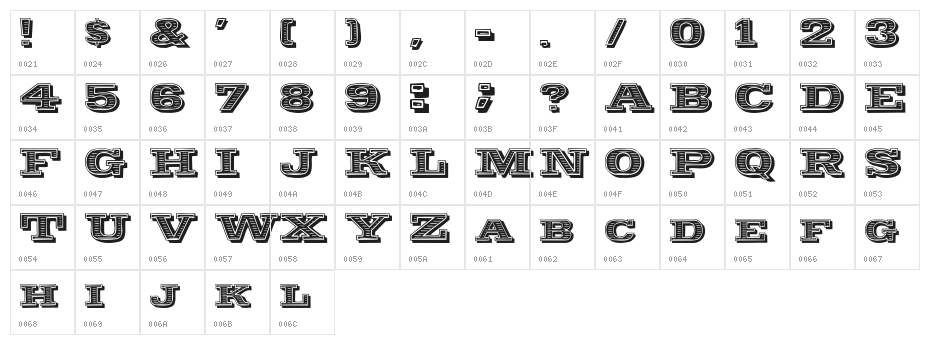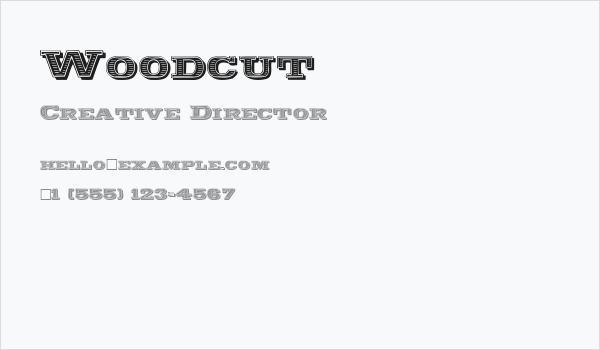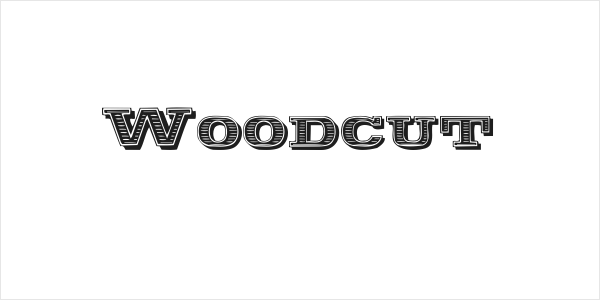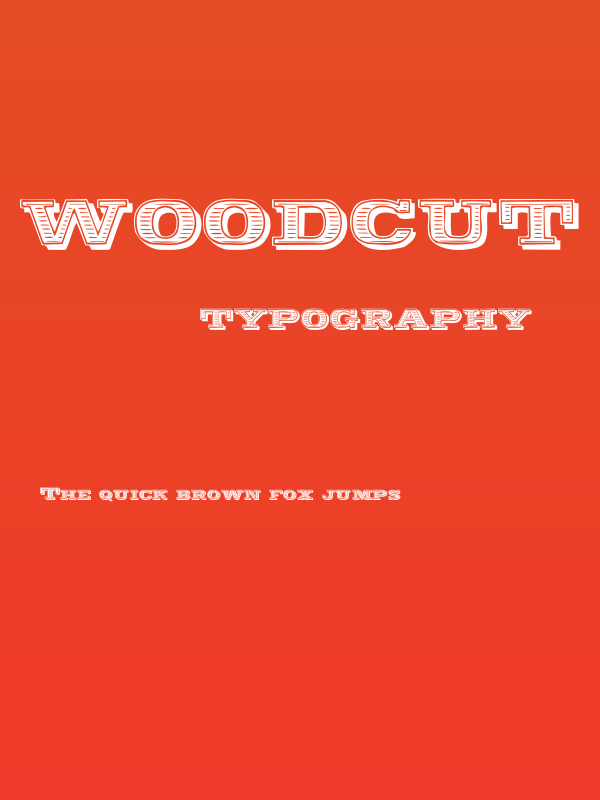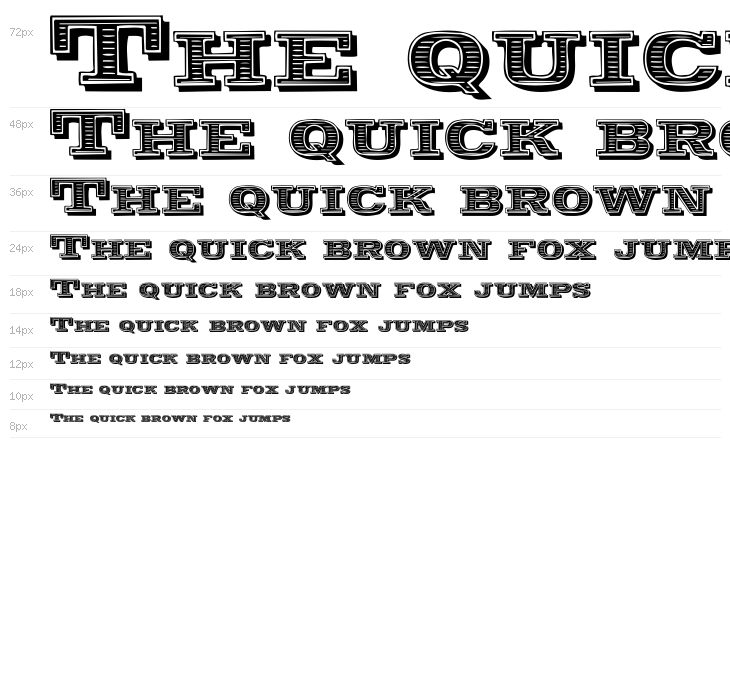
Woodcut Font
Woodcut Description
This font features a bold, decorative style with a distinct woodcut appearance. The letters are characterized by thick, block-like forms with intricate inner detailing that mimics the texture of carved wood. The uppercase and lowercase letters maintain a consistent design, providing a cohesive look across different text sizes. The numerals and special characters follow the same stylistic approach, ensuring uniformity throughout. This font's unique aesthetic makes it stand out, offering a vintage yet artistic feel that is both eye-catching and memorable.
| Proposed Projects | Ideal for vintage-themed posters, artistic book covers, branding for craft or artisanal products, and decorative signage. |